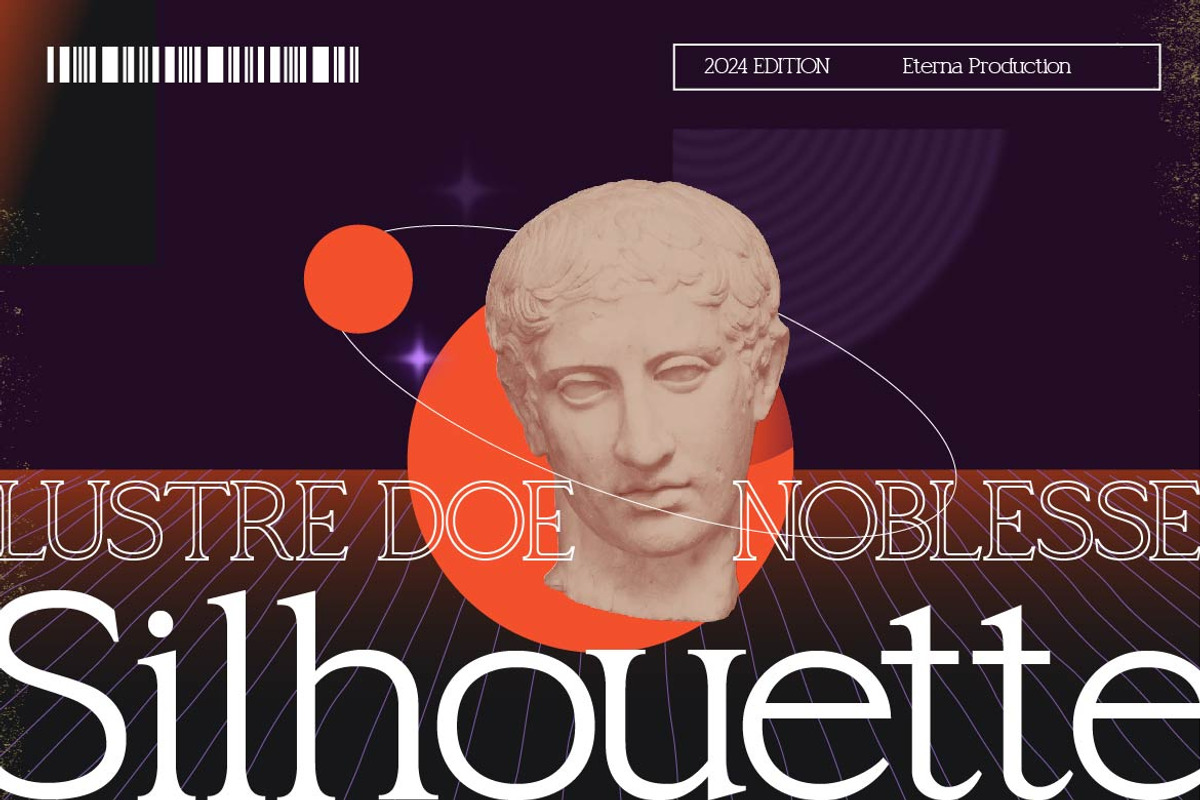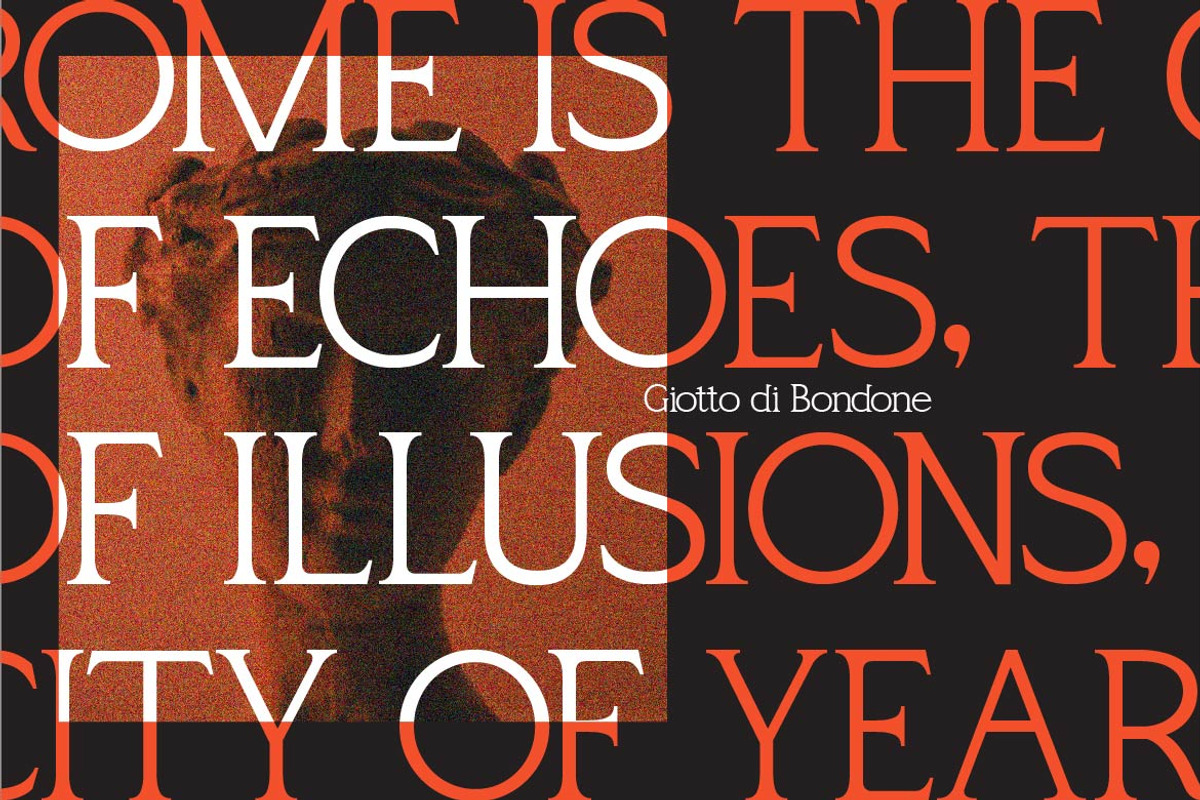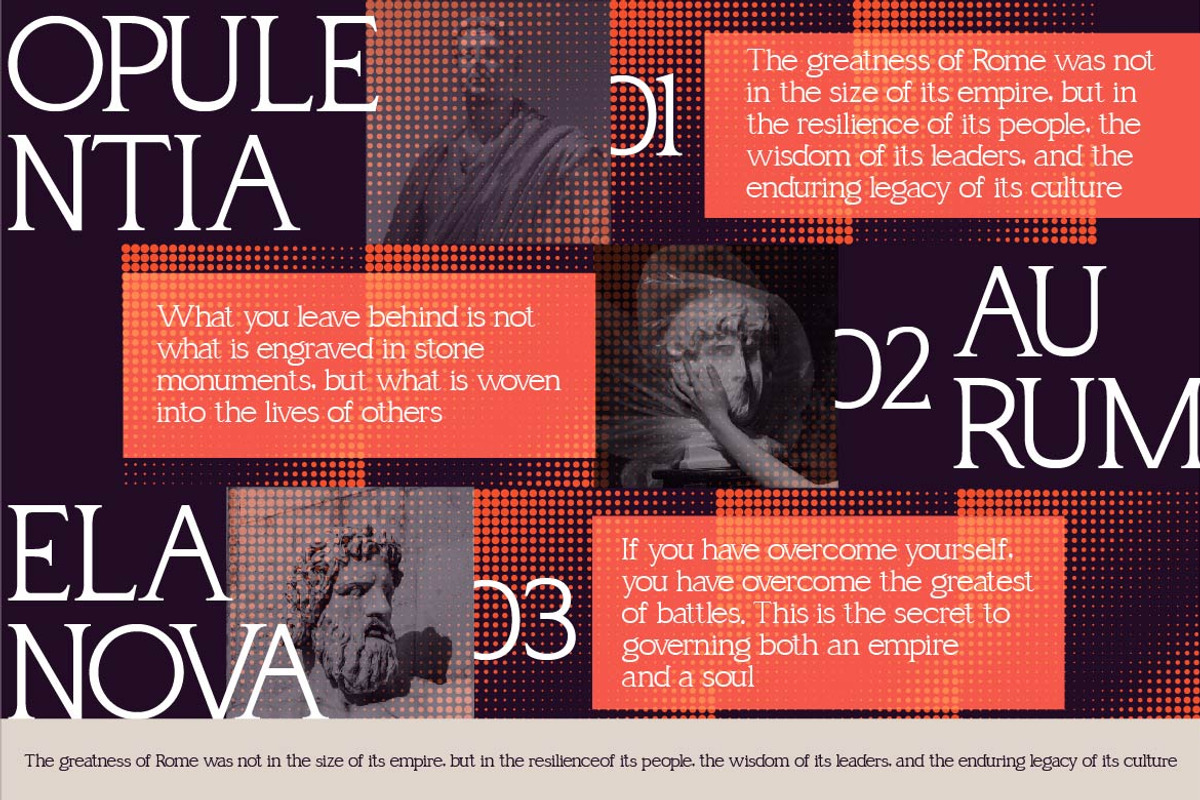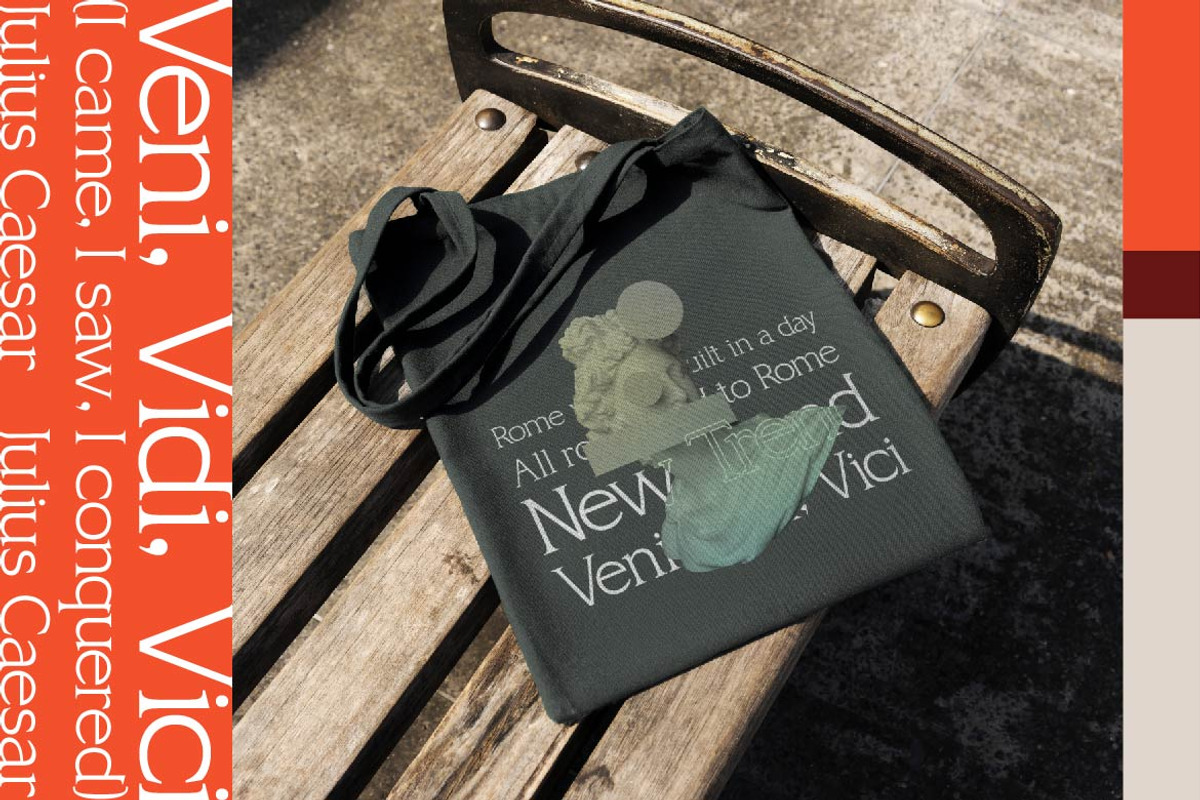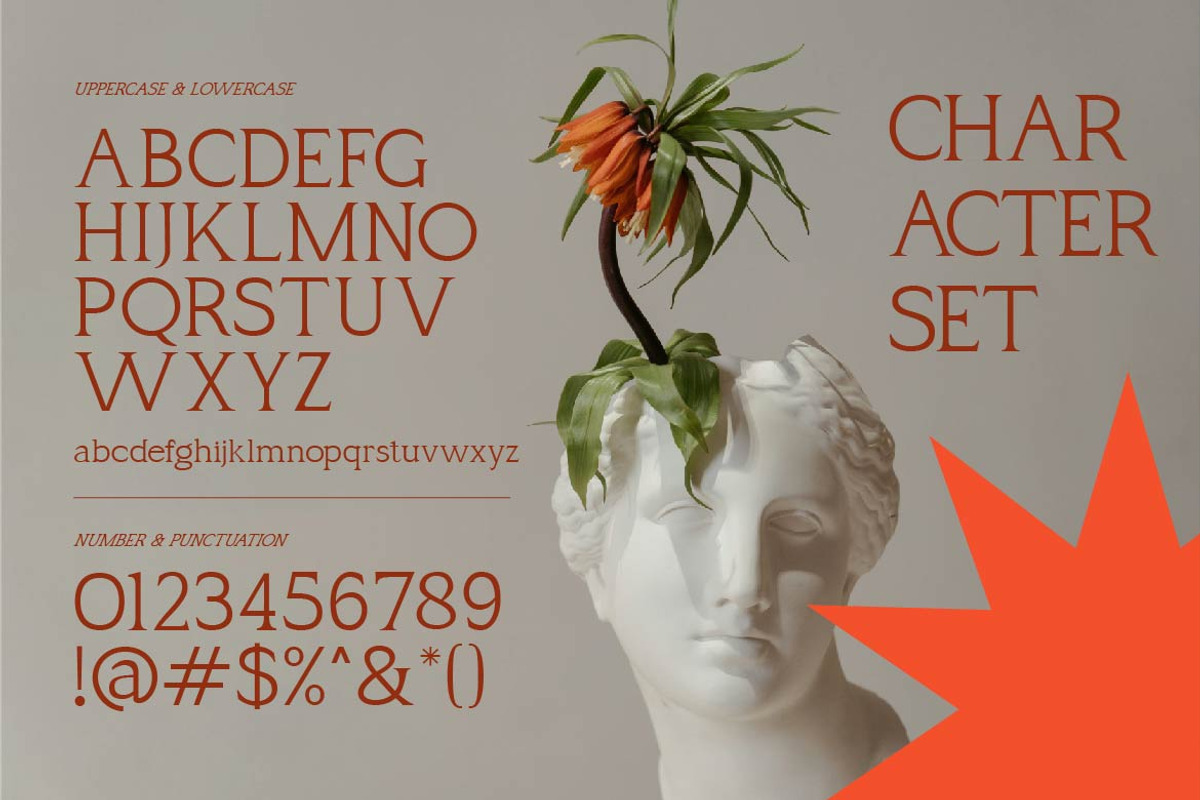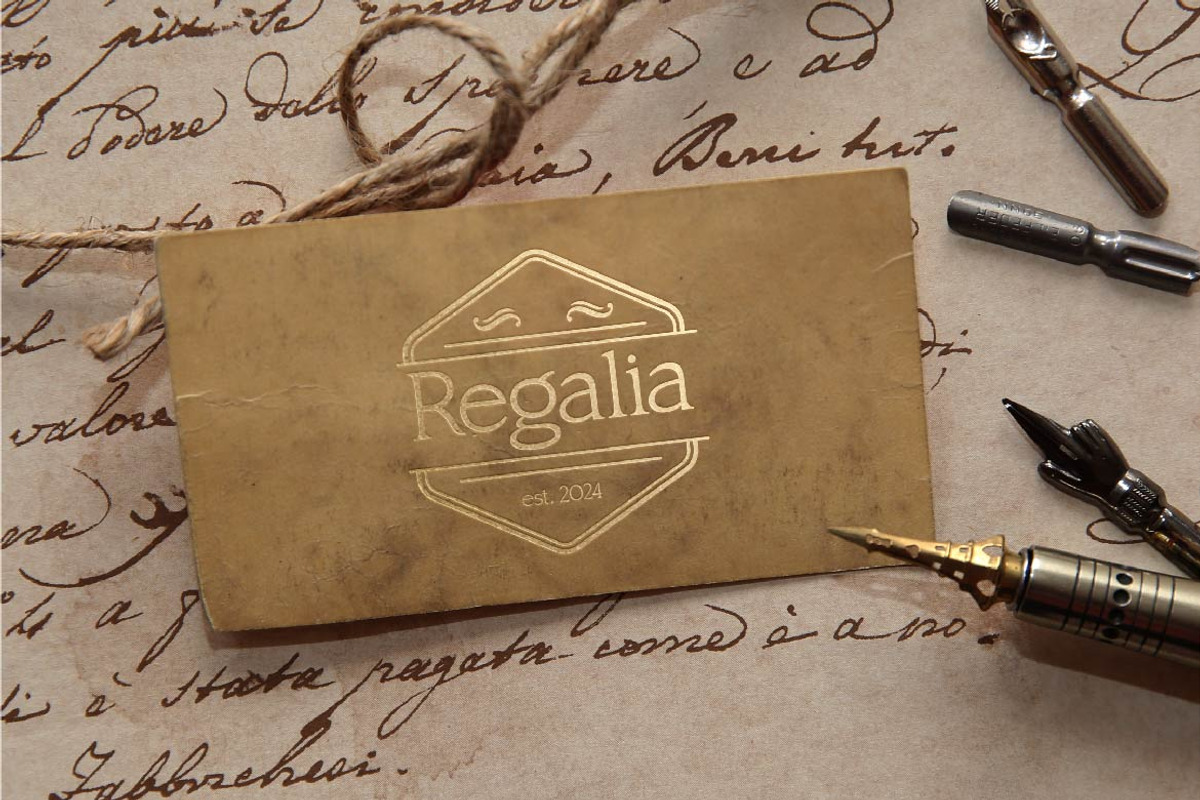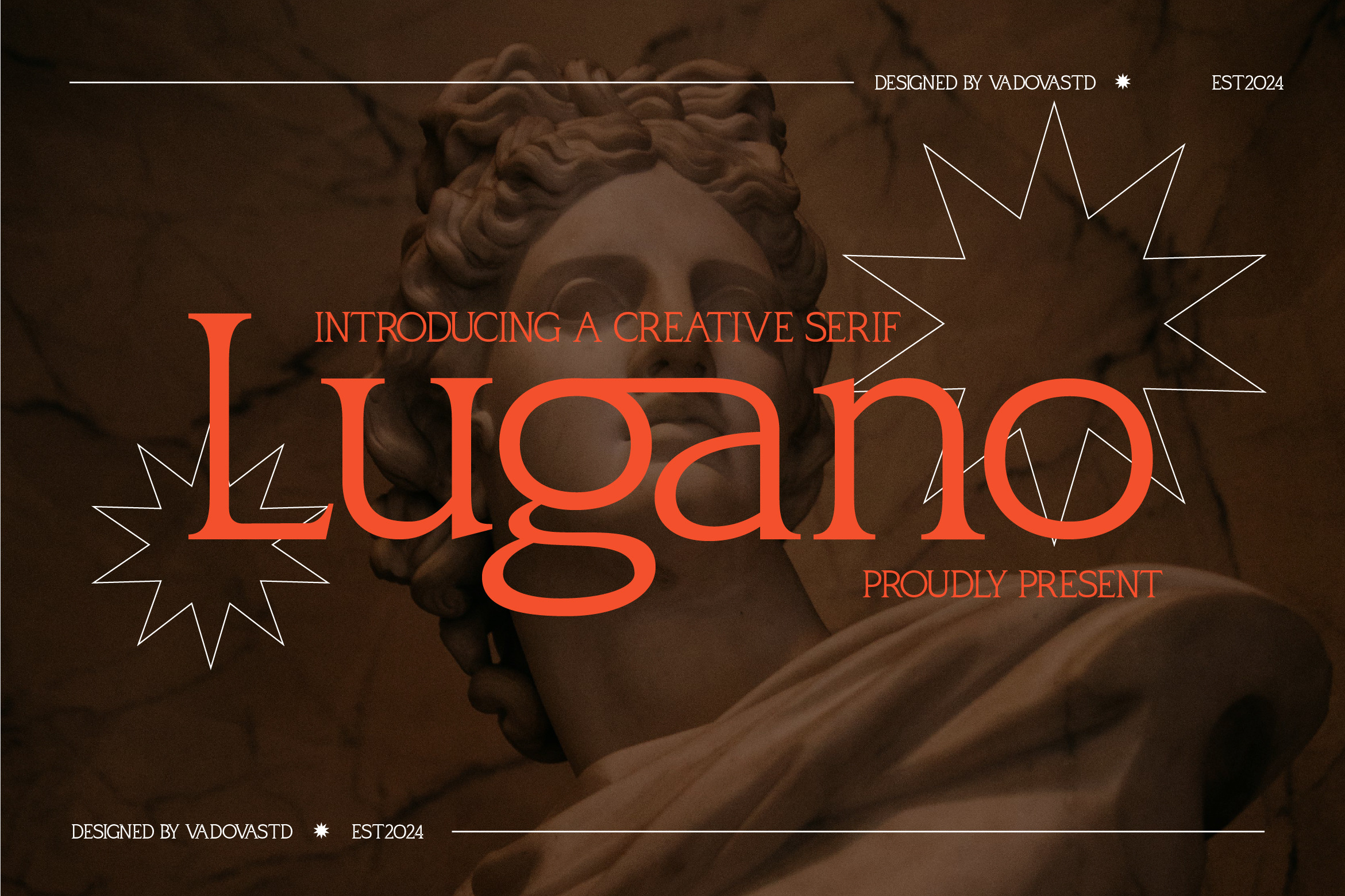
Lugano Creative Serif Font
Lugano is a refined serif font that merges timeless classical influence with modern creative sensibility. Inspired by the elegance of Roman sculpture and high-fashion editorial design, Lugano offers a bold, confident tone while retaining a sense of delicacy and sophistication. Each character is carefully crafted with attention to proportion, contrast, and rhythm resulting in a typeface that feels both commanding and graceful.The typeface features sharp wedge-like serifs, high vertical contrast, and elegant curvature, creating a perfect balance between tradition and innovation.
With its expressive form and versatile application, Lugano is ideal for designers who value classical influence but seek a fresh, modern twist. It works beautifully in large-scale typography, logos, and identity systems that require both elegance and edge.Whether you’re designing fashion lookbooks, museum posters, cinematic titles, upscale packaging, or editorial layouts, this font will elevate your visual language with sculptural beauty and strong typographic presence.
- Classic serif construction with high contrast for elegant visual hierarchy
- Sculptural curves and sharp serif terminals inspired by Roman letterforms
- Balanced proportions and smooth transitions between strokes for fluidity
- Designed for strong impact in display settings while remaining graceful in text
- Ideal for premium branding, editorial design, art-inspired layouts, and luxury packaging
- Luxury brand identities that require elegance and bold presence
- Editorial layouts for magazines, art books, and cultural publications
- Premium packaging design for cosmetics, perfume, or artisanal goods
- Invitations and stationery for weddings or upscale events
- Marketing materials and social media visuals that demand sophistication
Command attention with timeless grace Lugano brings sculptural elegance to every design